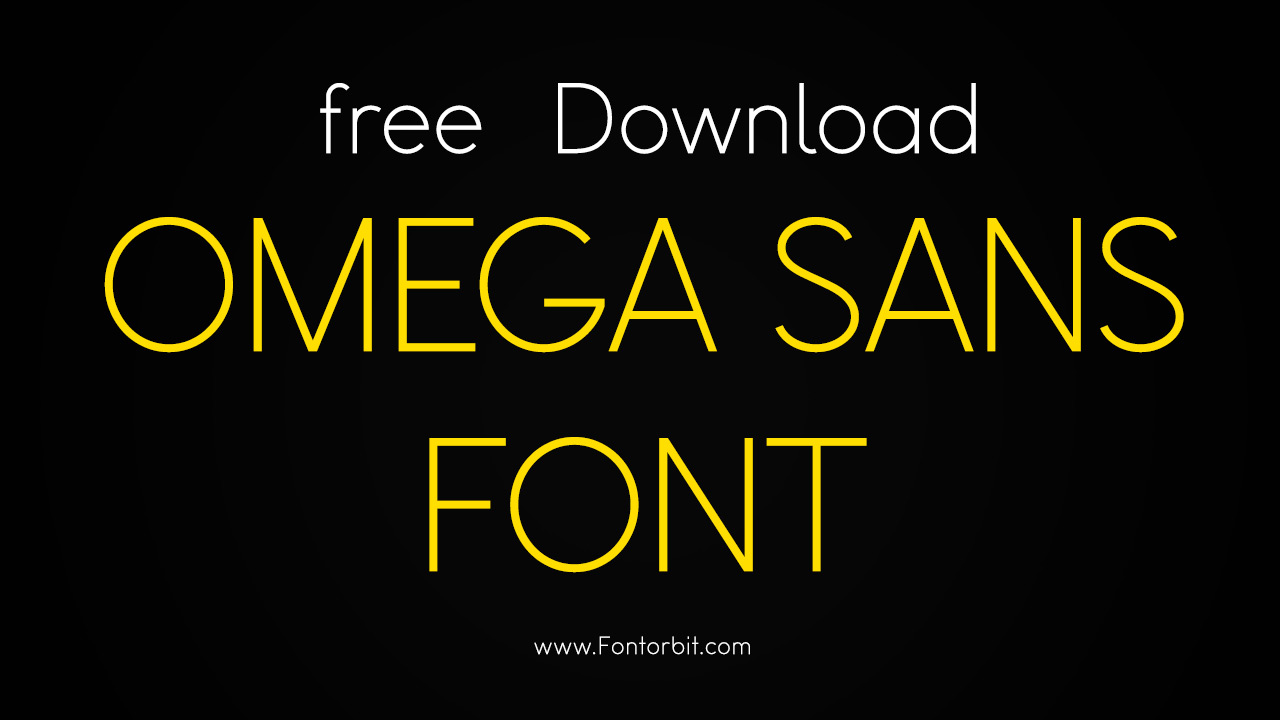
The Omega Sans Font, designed by Anthony James, is a classic sans serif typeface that combines geometric precision with modern versatility. Featuring minimal anchor points and well-balanced Beziér curves, Omega Sans delivers a sharp and refined look that stands out in both text and sub-headings.
The Omega Sans Font Family
- Omega Sans Regular
- Omega Sans Italic
- Omega Sans Light
- Omega Sans Bold
Omega Sans Regular offers a clean, bold appearance, while Omega Sans Italic adds a dynamic slant for added emphasis. The font family includes multiple weights, from Light to Bold, providing design flexibility for various applications.
- Business Cards
- Headings and Sub-headings
- Web and Print Design
Omega Sans captures a blend of classic and modern sans serif aesthetics with its geometric precision and versatile weights. It’s suitable for a variety of high-impact projects, from branding to web design, offering a sleek and professional look.
1.What Is The Omega Sans Font?
The Omega Sans Font is a classic sans serif typeface by Anthony James, known for its geometric precision and versatile design, ideal for a wide range of text and branding applications.
2.What Are The Key Features Of The Omega Sans Font?
Omega Sans features clean lines, minimal anchor points, and balanced Beziér curves, making it perfect for professional and contemporary design needs.
3.How To Use The Omega Sans Font In Branding?
Use Omega Sans for creating striking and memorable brand identities with its modern, geometric appearance. Its various weights offer flexibility for different design requirements.
4.What Are The Recommended Font Sizes For Omega Sans Font In Body Text?
For Omega Sans in body text, recommended font sizes are typically 10 to 12 points for optimal readability and clarity, depending on the design context and medium.
5.What Are The International Language Support Options For The Omega Sans Font?
Omega Sans supports over 120 Latin-based languages, ensuring broad usability for international projects. For extended language support, additional typefaces may be needed.